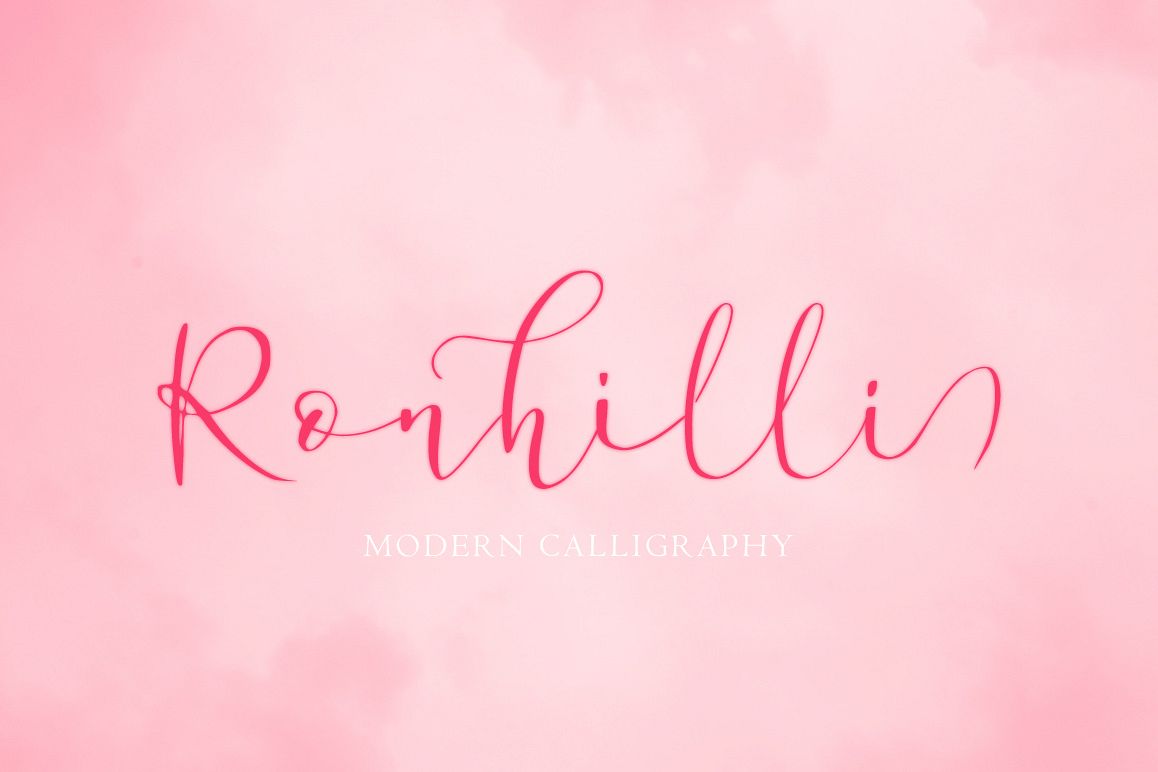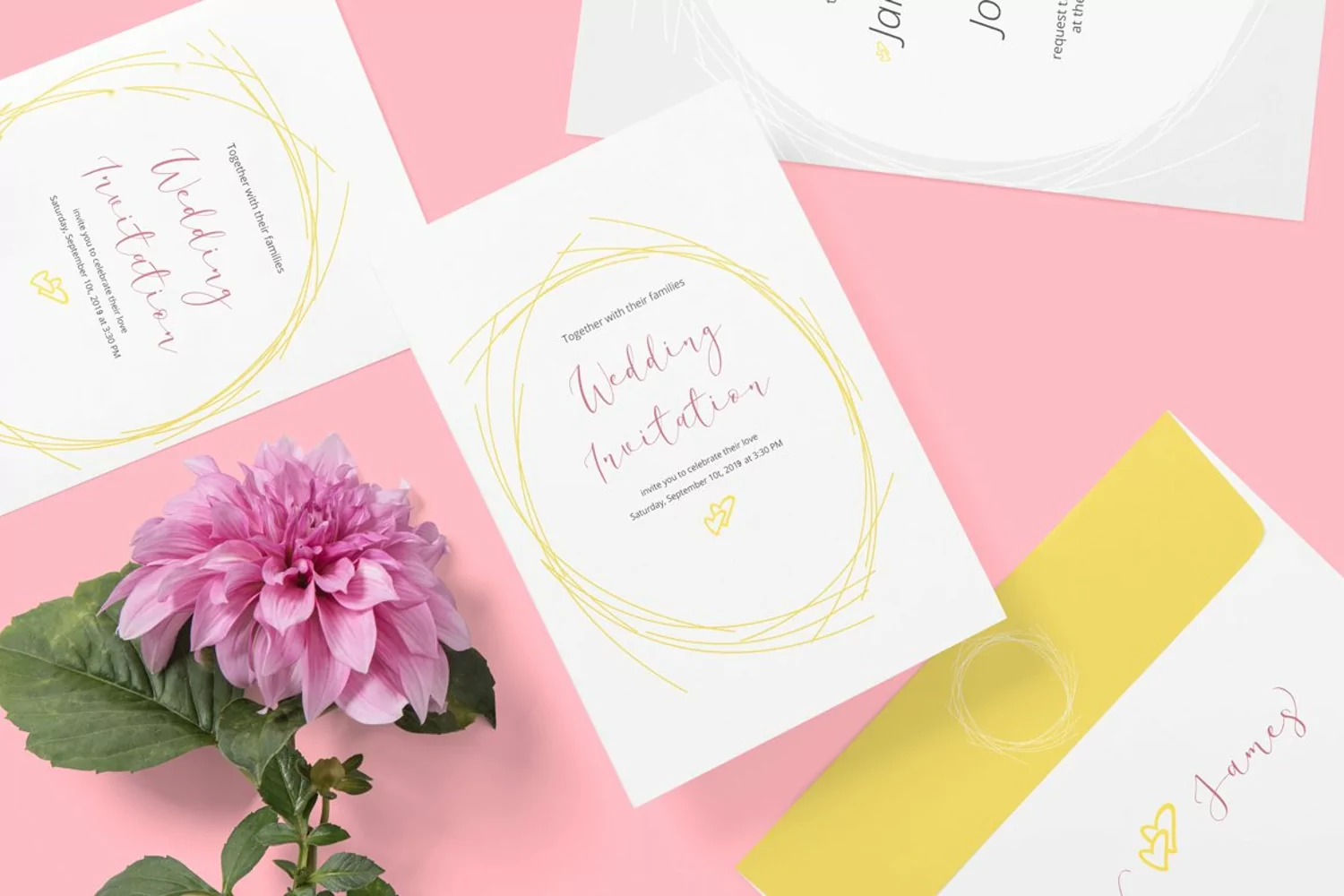
Hallo everyone, I want to introduce my font Ronhilli Script Font Modern Calligraphy.
Ronhilli Font script is perfect to you up coming projects. such as modern invitation design, branding stationery design, wedding, birthday, etc and any projects.